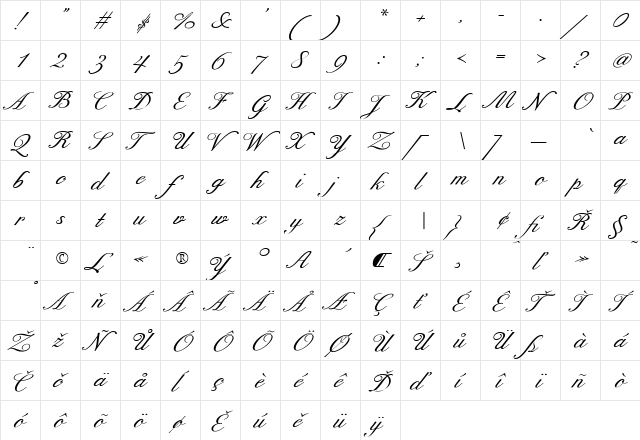
ExcelsiorScript Regular
| Foundry | Copr. Franta Storm |
Design Context for ExcelsiorScript Typeface
ExcelsiorScript flows with the natural rhythm of handwritten lettering, making it ideal for designs that call for warmth and personal expression.